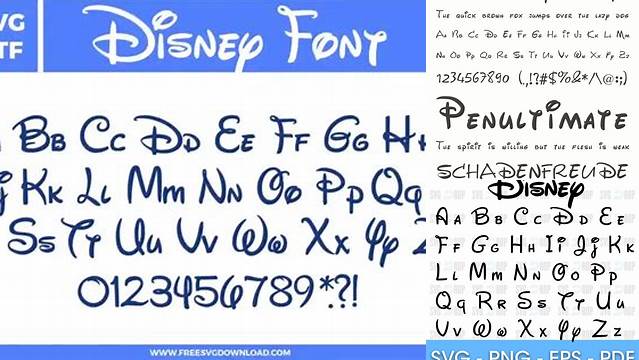
Disney Script SVG Font: Free Download And Uses
Hey guys! Are you ready to add a sprinkle of Disney magic to your creative projects? If you're a fan of the enchanting world of Disney and love crafting, then you're in for a treat! In this article, we'll dive deep into the whimsical world of Disney Script SVG fonts. We'll explore what they are, why they're so popular, and how you can use them to bring your designs to life. So, grab your Mickey ears and let's get started!
What is a Disney Script SVG Font?
First things first, let's break down what we mean by a Disney Script SVG Font. SVG stands for Scalable Vector Graphics, which is a fancy way of saying that these fonts are designed in a vector format. This means they can be scaled up or down without losing any quality, making them perfect for a wide range of projects, from small stickers to large banners. Now, add the Disney Script element, and you've got a font that mimics the iconic lettering style seen in Disney logos, movie titles, and merchandise. Think of the swirly, whimsical, and utterly charming letters that instantly transport you to the Magic Kingdom. That's the essence of a Disney Script font!
The Disney magic is truly captured in these fonts, and that's why they're a favorite among designers, crafters, and Disney enthusiasts alike. Whether you're creating personalized gifts, designing invitations for a Disney-themed party, or adding a touch of nostalgia to your scrapbook, a Disney Script SVG font is your secret weapon. These fonts aren't just about aesthetics; they evoke emotions and memories, instantly connecting with the audience on a deeper level. Itβs like a visual shortcut to childhood dreams and fairytale fantasies. Using a Disney Script font is more than just choosing a typeface; it's about embedding a piece of Disney's timeless charm into your work. The beauty of SVG fonts is that they're incredibly versatile. They can be used in various design software, from Adobe Illustrator and Photoshop to simpler programs like Cricut Design Space and Silhouette Studio. This accessibility means that whether you're a professional designer or a weekend hobbyist, you can easily incorporate these fonts into your projects. The crisp lines and smooth curves of SVG fonts ensure that your text looks polished and professional, regardless of the size or complexity of your design.
Why are Disney Script SVG Fonts so Popular?
So, what's the big deal about these fonts? Why are they so incredibly popular? Well, there are several reasons why Disney Script SVG fonts have captured the hearts of so many:
Nostalgia and Brand Recognition: Let's face it, Disney holds a special place in many of our hearts. The brand is synonymous with childhood joy, magical adventures, and heartwarming stories. Using a Disney Script font instantly taps into that nostalgia, creating an emotional connection with your audience. The distinctive lettering is instantly recognizable, evoking memories of beloved characters, classic movies, and unforgettable theme park experiences. This powerful brand recognition is a significant asset for any project aiming to capture attention and create a positive impression.
Versatility: As we mentioned earlier, SVG fonts are incredibly versatile. They can be used in a wide range of projects, from digital designs to physical crafts. Whether you're creating a logo, designing a t-shirt, or making custom stickers, a Disney Script SVG font can add that perfect touch of magic. Think about the possibilities β personalized birthday banners, custom mugs, enchanting wall decals, and so much more. The only limit is your imagination! The adaptability of these fonts extends beyond just the type of project. They also work well with various design styles, from minimalist and modern to whimsical and vintage. This flexibility makes them a valuable addition to any designer's toolkit.
Scalability: The SVG format ensures that these fonts look crisp and clear at any size. You don't have to worry about pixelation or distortion when scaling them up for large prints or banners. This scalability is a huge advantage, especially for projects where the font needs to be prominently displayed. Imagine creating a giant backdrop for a Disney-themed event or designing a large-format poster β with SVG fonts, you can be confident that your text will look flawless, no matter the size. This feature also makes them ideal for digital applications, where responsiveness and resolution independence are crucial.
Uniqueness and Charm: There's something undeniably charming about the Disney Script style. It's whimsical, playful, and full of character. This unique aesthetic can add a touch of personality to your projects, making them stand out from the crowd. In a world of generic fonts and predictable designs, a Disney Script font offers a refreshing alternative. It's a way to inject some fun and creativity into your work, instantly making it more engaging and memorable. The flowing lines and elegant curves of the font create a sense of movement and energy, adding visual interest to any design.
Ease of Use: SVG fonts are generally easy to use in most design software. Once you've downloaded and installed the font, it's as simple as selecting it from your font menu and typing away. This ease of use makes them accessible to both professional designers and hobbyists. You don't need to be a typography expert to incorporate these fonts into your projects. The straightforward installation process and compatibility with various software programs mean you can start using them right away, saving time and effort. This user-friendliness is a major factor in their popularity, as it allows anyone to add a touch of Disney magic to their creations.
How to Use Disney Script SVG Fonts
Okay, so you're sold on the idea of using Disney Script SVG fonts. But how do you actually use them in your projects? Here are some ideas to get your creative juices flowing:
Invitations and Party Decorations: Planning a Disney-themed party? Use a Disney Script font to create magical invitations, banners, and decorations. Think about personalized invitations for a child's birthday party, complete with character silhouettes and sparkling accents. Or how about creating a welcome banner for the entrance, adorned with the birthday child's name in a whimsical Disney Script font? The possibilities are endless! You can even use the font to create custom cake toppers, cupcake wrappers, and party favor tags, ensuring a cohesive and enchanting theme throughout your celebration. The key is to use the font strategically, pairing it with complementary colors and design elements to create a truly magical atmosphere.
Personalized Gifts: Create one-of-a-kind gifts for your loved ones by adding their names or special messages in a Disney Script font. Imagine a custom mug with a favorite quote from a Disney movie or a personalized t-shirt featuring a beloved character's silhouette. These thoughtful touches can transform ordinary items into cherished keepsakes. You could also create personalized phone cases, keychains, or even wall art, adding a touch of Disney magic to everyday life. The beauty of personalized gifts is that they show you've put thought and effort into creating something truly special, and using a Disney Script font adds an extra layer of charm and sentimentality.
Scrapbooking and Memory Keeping: Preserve your precious memories in style by using a Disney Script font in your scrapbooks and photo albums. Label your photos, add captions, and create decorative elements that capture the magic of your Disney vacations and other special moments. Think about using the font to create titles for scrapbook pages, write journaling entries, or add whimsical embellishments. You can even use different colors and sizes of the font to create visual interest and highlight key moments. The goal is to create a scrapbook that not only preserves your memories but also tells a story in a visually appealing and engaging way.
T-Shirt Designs and Apparel: Design your own Disney-inspired t-shirts, hoodies, and other apparel using a Disney Script font. This is a fun way to express your love for Disney and create unique, personalized clothing. Imagine a t-shirt with a clever Disney-themed slogan or a hoodie featuring a beloved character's name. You can even create matching shirts for family vacations or group events, making everyone feel part of the magic. When designing apparel, consider the placement and size of the font, ensuring it complements the overall design and is easily readable. You can also experiment with different colors and effects, such as glitter or metallic finishes, to add extra sparkle and shine.
Logos and Branding: If you have a business or blog with a whimsical or nostalgic theme, a Disney Script font can be a great choice for your logo and branding materials. However, it's important to use it appropriately and ensure it aligns with your brand's overall identity. A Disney Script font can add a touch of playfulness and charm to your logo, making it more memorable and engaging. However, it's crucial to consider your target audience and the message you want to convey. If your brand is all about fun, creativity, and a touch of nostalgia, then a Disney Script font can be a perfect fit. Just be sure to use it in moderation and pair it with other design elements that reinforce your brand's identity.
Where to Find Disney Script SVG Fonts
Now that you're brimming with ideas, you might be wondering where you can get your hands on these magical fonts. Here are a few places to check out:
Online Marketplaces: Websites like Etsy, Creative Market, and Design Bundles offer a wide variety of Disney Script SVG fonts, both free and paid. These marketplaces are a treasure trove of creative resources, offering fonts from independent designers around the world. You can browse through different styles and find the perfect font to match your project's aesthetic. Be sure to read reviews and check the licensing terms before making a purchase, ensuring the font is suitable for your intended use. Online marketplaces often offer bundled deals and discounts, so keep an eye out for special promotions.
Font Websites: Many font websites, such as DaFont and FontSpace, offer a selection of free fonts, including some that resemble the Disney Script style. While these may not be official Disney fonts, they can still be a great option for personal projects or when you're on a tight budget. However, it's essential to carefully review the licensing terms of free fonts, as they may have restrictions on commercial use. Font websites often have user ratings and comments, providing valuable insights into the quality and usability of the fonts. You can also filter your search by font style, weight, and other criteria, making it easier to find the perfect font for your project.
Design Software Subscriptions: Some design software subscriptions, like Adobe Creative Cloud, include access to a library of fonts, some of which may have a Disney-inspired look. This can be a convenient option if you already have a subscription to design software. Adobe Fonts, for example, offers a vast collection of fonts, including many that are suitable for a wide range of projects. The fonts are fully licensed for commercial use, making them a safe and reliable option for professional designers. Design software subscriptions often include other valuable resources, such as tutorials, templates, and stock photos, making them a comprehensive solution for creative projects.